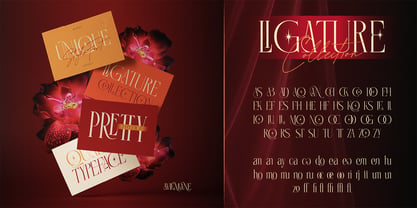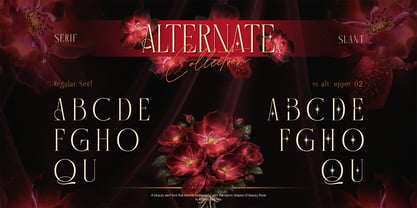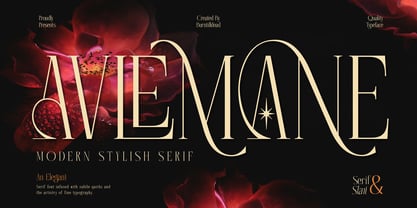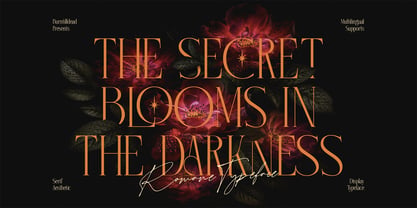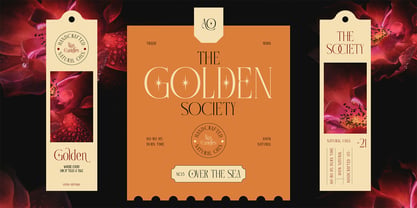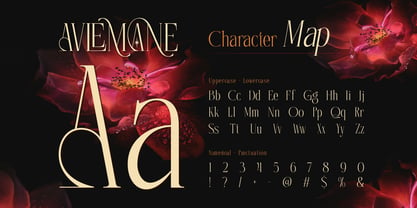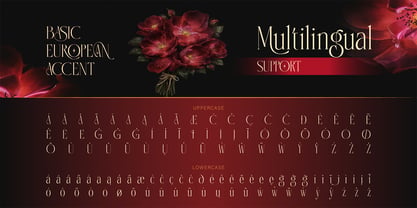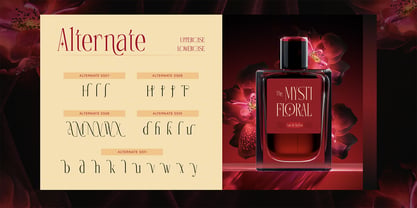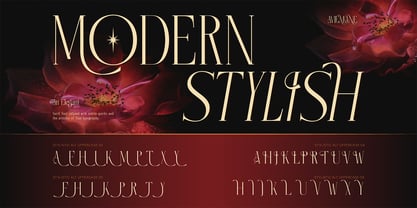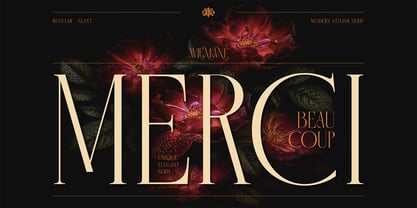
Avlemane
von Burntilldead
Die Schriftfamilie Avlemane wurde von Eric Kurniawan entworfen und von Burntilldead veröffentlicht. Avlemane enthält 2 Stile und Familienpaketoptionen. Mehr über diese Familie
Avlemane, a modern serif typeface crafted with elegance, character, and a subtle touch of vintage romance. Featuring smooth curves, refined contrast, and delicate detailing, Avlemane brings timeless sophistication to any design project.
Avlemane comes in two beautiful styles — Regular and Slant — giving you the flexibility to mix classic elegance with a graceful, romantic flow. Packed with stylistic alternates, elegant ligatures, multilingual support, numerals, and punctuation, this typeface is designed to elevate your branding, editorial, and lifestyle projects with a luxurious yet approachable feel.
Whether you're designing a wedding invitation, a fashion logo, or a premium product label, Avlemane adds instant charm and sophistication to your work.
Perfect For:
• Wedding invitations & stationery
• Logo & branding design
• Fashion & beauty packaging
• Magazine headlines & editorial layout
• Social media quotes & content
• Product labels (candles, skincare, perfume)
• Book covers & posters
• Luxury & boutique branding